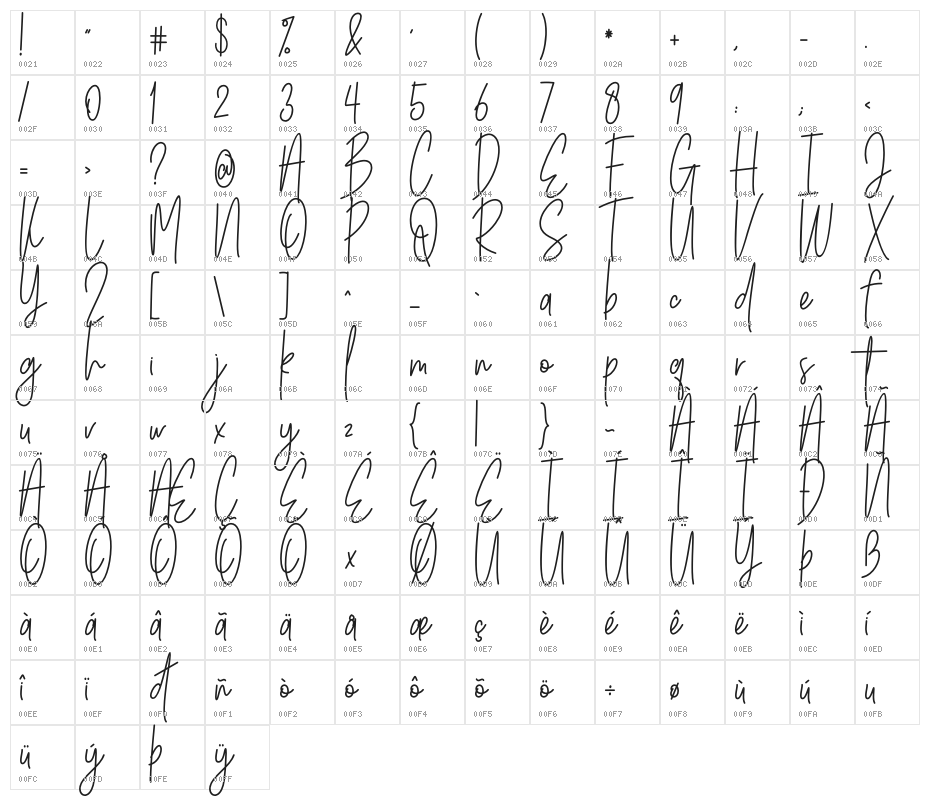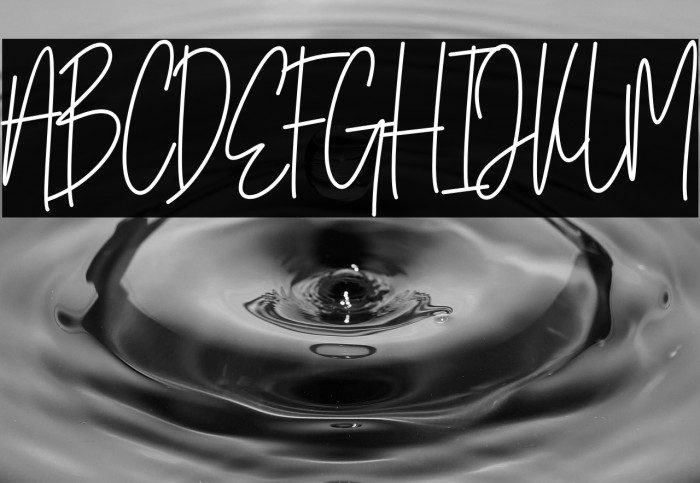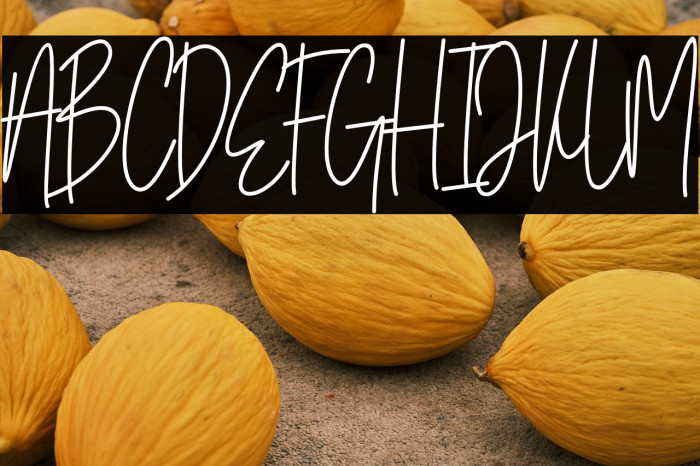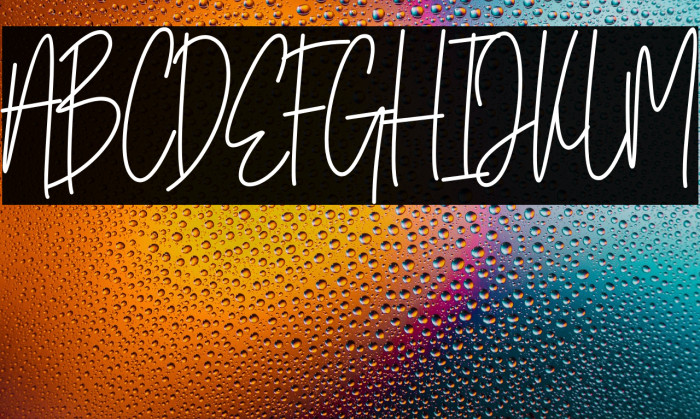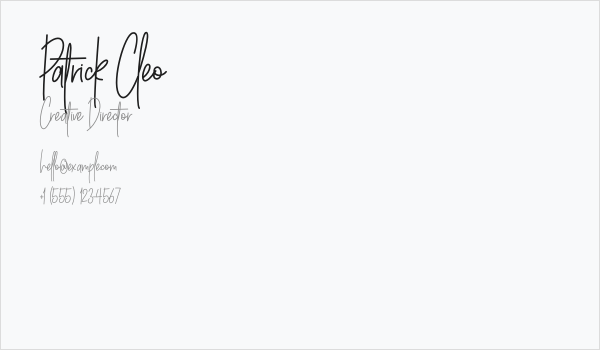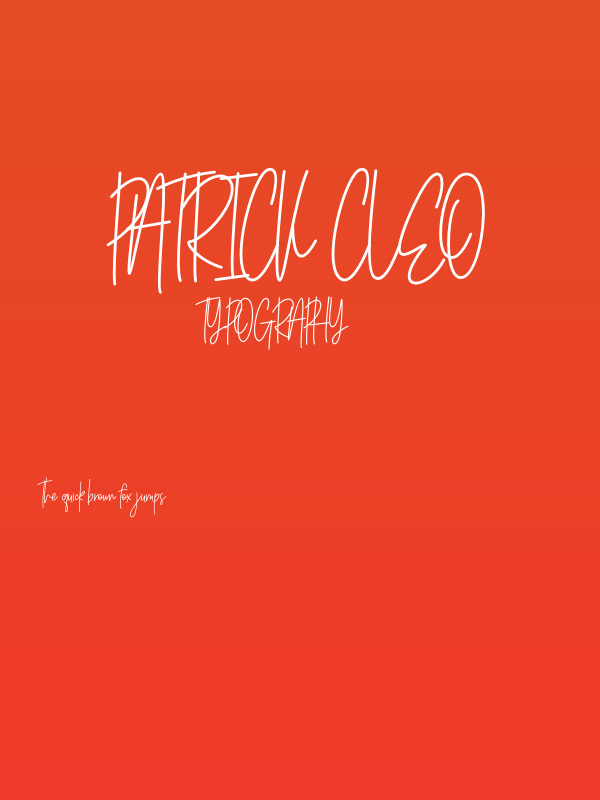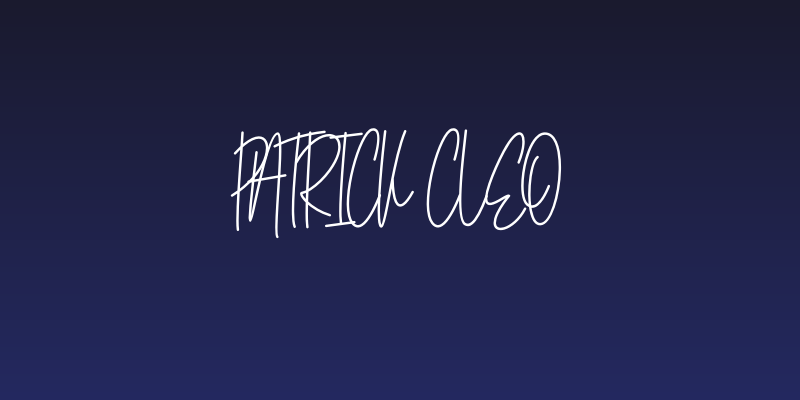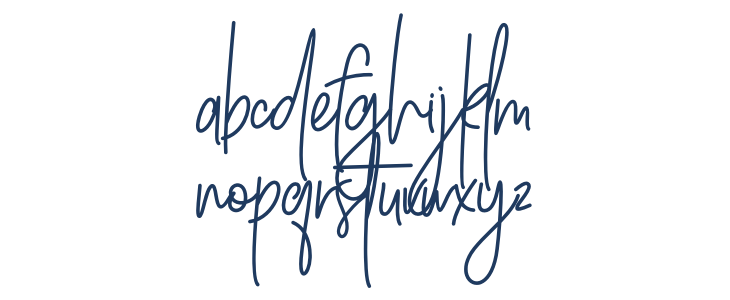
Patrick Cleo Font
Patrick Cleo Description
This font features a dynamic and expressive handwritten style, characterized by its fluid and continuous strokes. The letters are elongated and slightly slanted, giving a sense of motion and energy. The uppercase and lowercase letters maintain a consistent style, with the lowercase letters being slightly more compact. Numbers and special characters follow the same flowing design, ensuring uniformity across all elements. The overall appearance is casual yet sophisticated, making it suitable for projects that require a personal touch.
| Proposed Projects | Ideal for personal branding, creative invitations, artistic posters, and social media graphics. |